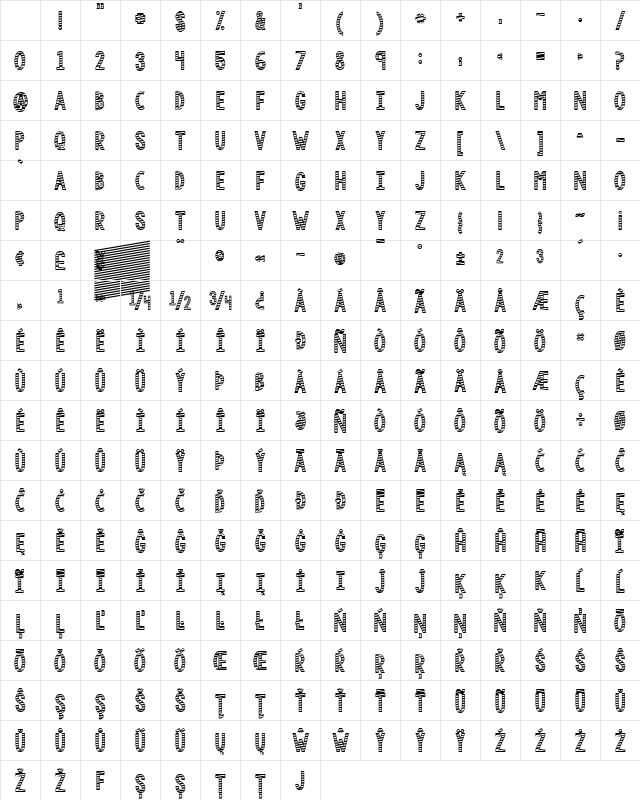
Complete KG Someone You Loved Stripes Regular glyph index. Displaying only characters natively supported by KG Someone You Loved Stripes Regular font.
KG Someone You Loved Stripes is a composed and adaptable typeface that performs quietly and consistently across a wide range of design contexts.